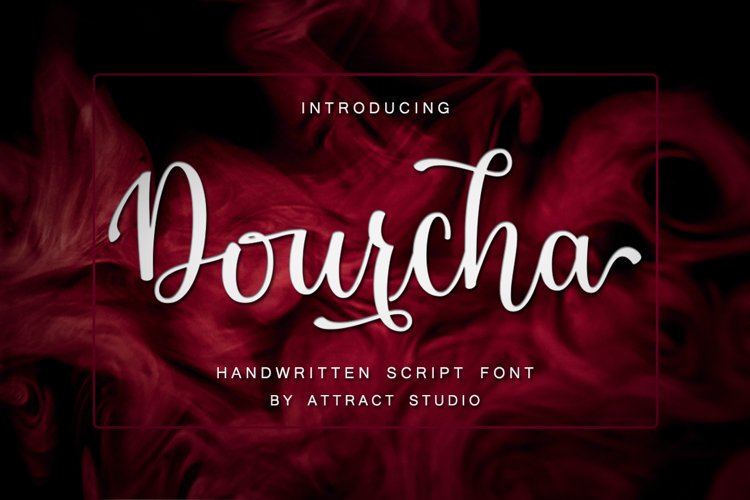
Dourcha Script is a new modern script font with an irregular base line. Handwriting style, trendy and feminine. Dourcha Script looks good on wedding invitations, thank you cards, quotes, greeting cards, logos, business cards and more. Perfect for use in ink or watercolors. Includes beginning and end letters, alternates, ligatures and multiple language support.